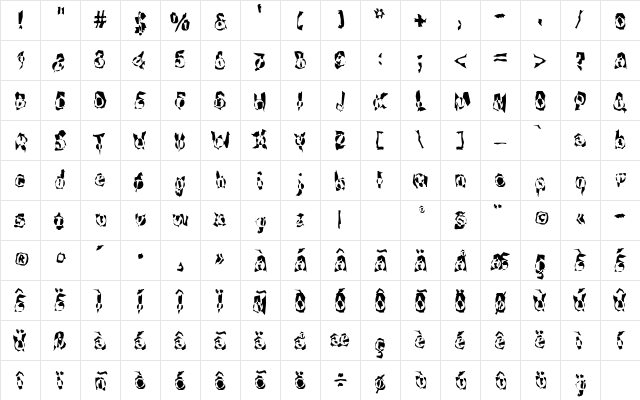
F2FZakkGlobe LT Std Regular
Designer: Thomas Nagel
Design Context for F2FZakkGlobe LT Std
F2FZakkGlobe LT Std is a composed and adaptable typeface that performs quietly and consistently across a wide range of design contexts. Its slender proportions lend an understated elegance to any composition.